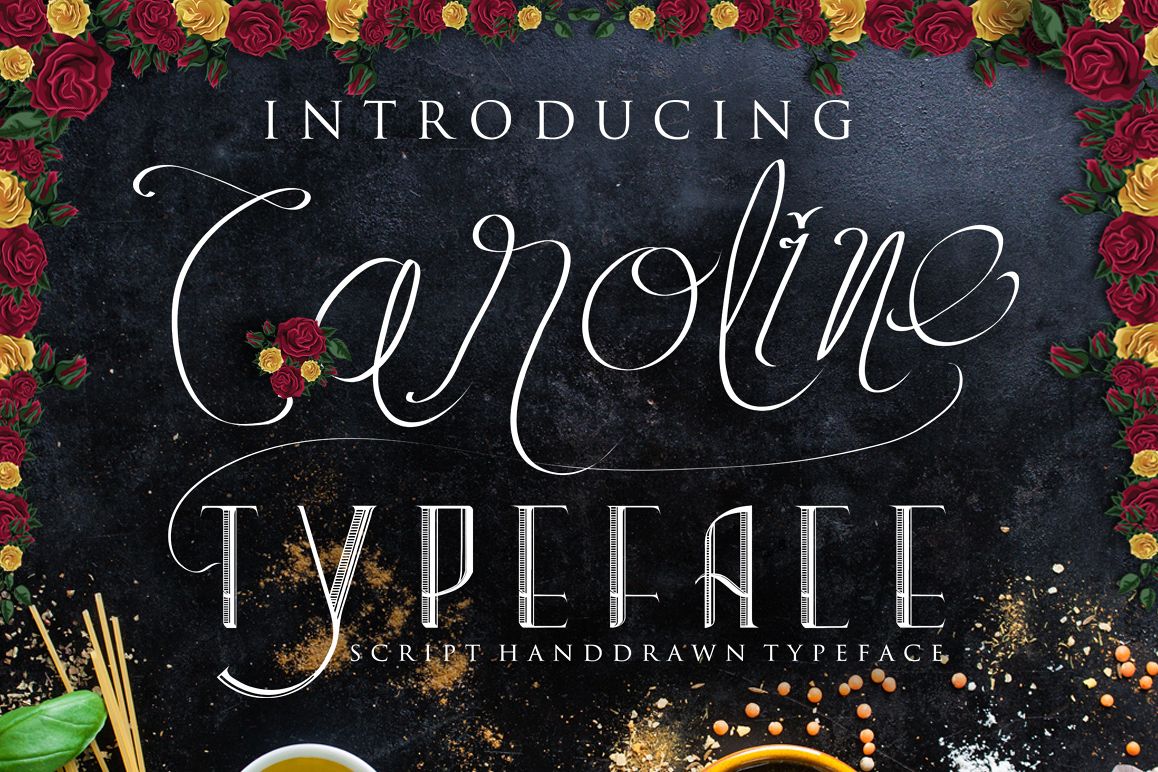
caroline typeface
caroline
caroline typeface inspired from old man handdrawn lettering and vintage style, it's recomended for your awesome work (wedding invitation, logotype, logo, headline, quotes, love words, poster)
• Lowercaps
• Standard punctuation